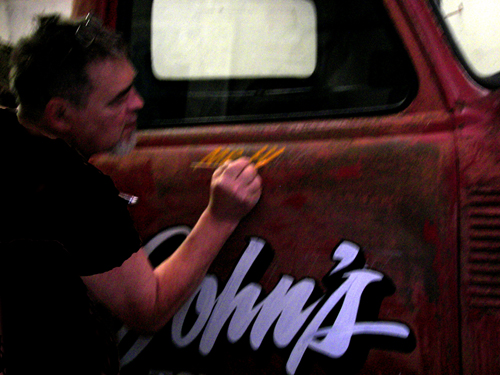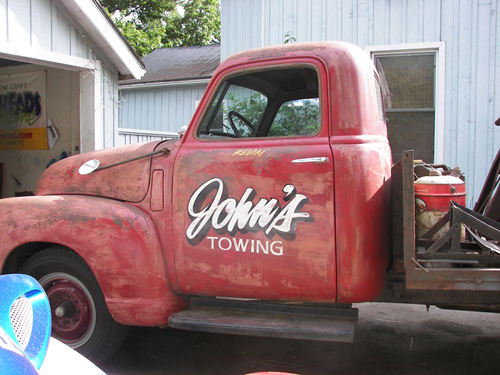
Our son John works for John's towing and his friend owns a 1949 tow truck.
There was an old car show in Fergus this past weekend. They decided it would be cool to enter the old tow truck.
John remembered his Dad used to hand letter years ago, so they asked him to pull out his brushes and make it look old.
Steve grabbed a grease pencil laid it out and proceeded to paint it, he then grabbed some sand paper and rubbed it to make it look old.
Here are the results
Yep. He's still got it! Looks great!
Nice!
I always thought Steve's hand lettering was some of the best. Excellent job.
Awesome for a young fella...
Steve paints one of the best casual scripts I've ever seen.....
Great to see! Love it!
Still one of the best in my book! Nice job Steve.
It always makes me a little nervous to spend all that time painting, and then whip out a piece of sandpaper to "fix-it"- haha
great looking job
whoa, Steve, looks like you're regressing, remember when we had to double coat for coverage and customers actually hated brush marks?
I got to see this first hand on the weekend. After talking with a few others i found out that Steve had done it. Thanks for posting this Barb!
Very nice indeed just perfect
Sonny is absolutely correct .. his casual script is to die for. At Shirley Carron's meet in Renfrew in 2003 , he did an alphabet for Alicia Krey from Fulton NY. I kept a photocopy, always intending on scanning, vectorizing & sharing but I've misplaced it. It would be cool if someone could get Steve to do another, & someone convert it to a font. Someone like Michael Gene, perhaps? LOL
Just like riding a bicycle ... you never forget how! Just takes a minute to get the wobbles out of the way!
Nice! You can't beat hand painting.
There really should be a Shortreed font out there.
Wonderful job Steve. I love it.
GORGEOUS!! Don't get why you drop the brushes. You really should get back at it!!
Stunning! I love it.
I have to admit that I really, enjoyed this project. It has to be 12-15 years since I did something like this. Never even bothered with a pattern. Just hand bombed it Pierre Style!
I've always loved brush lettering...especially scripts. Oldtimers will obviously see the influence of Mike Stevens, Bob Behounek, Keith Kneitch, Ken Millar and a whole list of old showcard artists. Many have required expensive surgery to remove my nose from their butts.
You know it's been almost 15 years since the public saw real sign painters at work. I felt real proud for my Sons and Grandsons to see that I was more than just a sick old man that spends his days hiding out. I thought it turned out great. Mu kid figured 30 minutes at top, but it was closer to 6 hours. Overall I had a great day!
Sweet job Steve, kinda like riding a bicycle? You really ought to do that alphabet I'd been bugging you about....
Not only is Steve a great sign painter, but while at Shirley's meet, he actually painted his own portrait. He has spent so much time showing all of us the works of others while we were missing all of his fine work.
Very nice!
Nice work Steve!
I've never done hand lettering.....hmmmm, maybe I should give it a whirl!